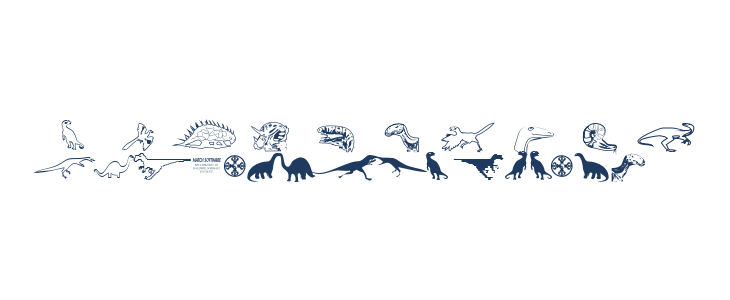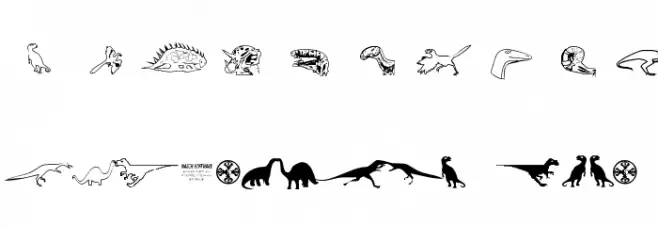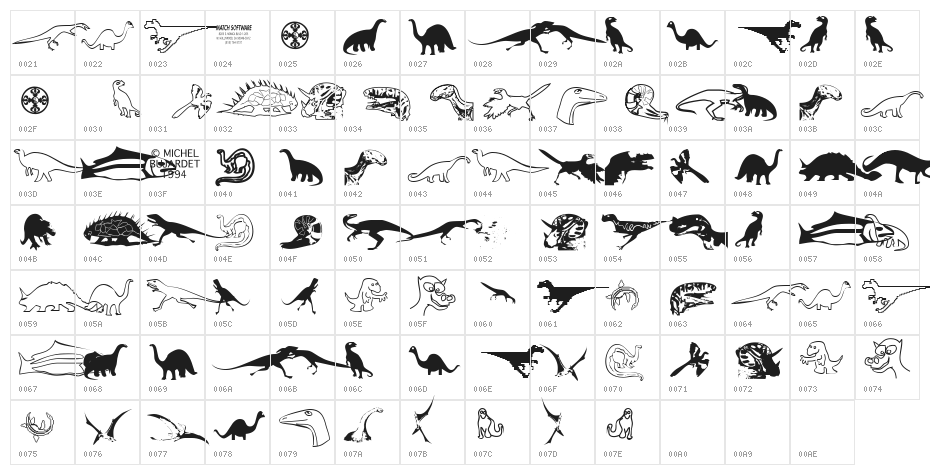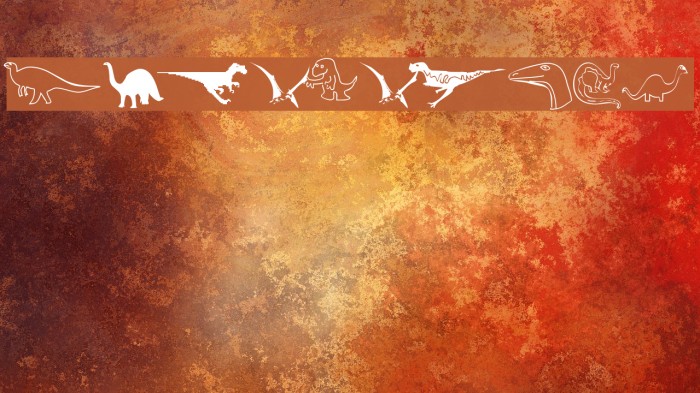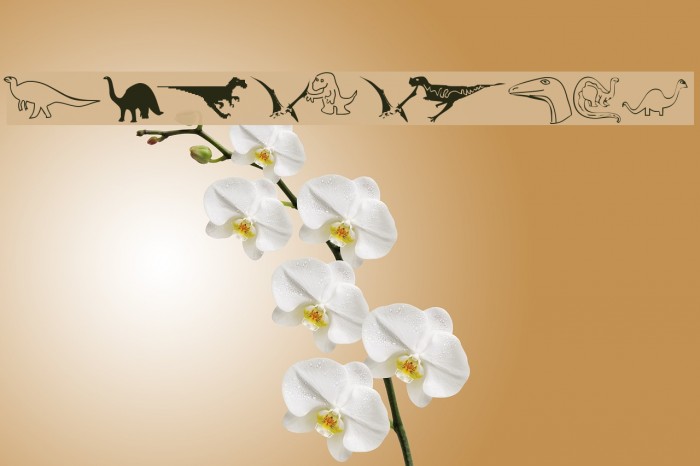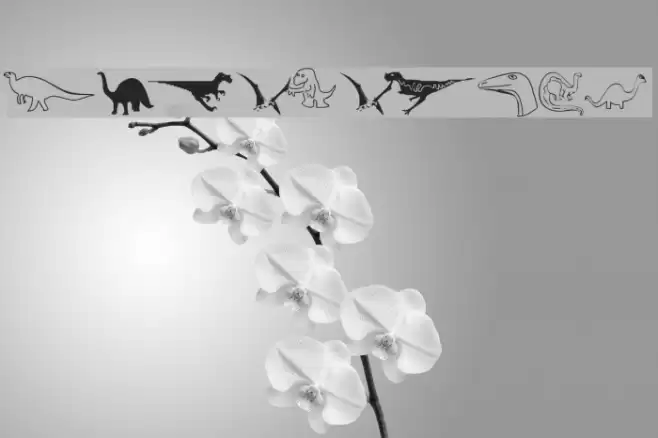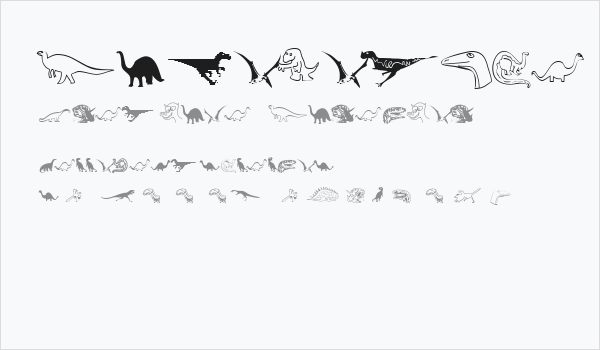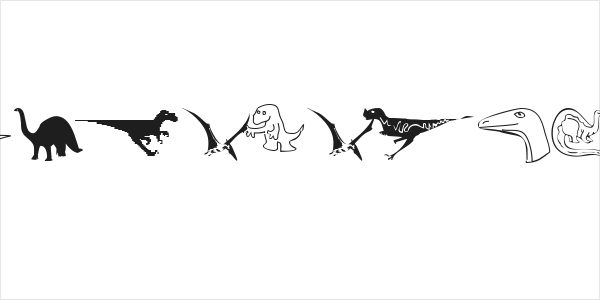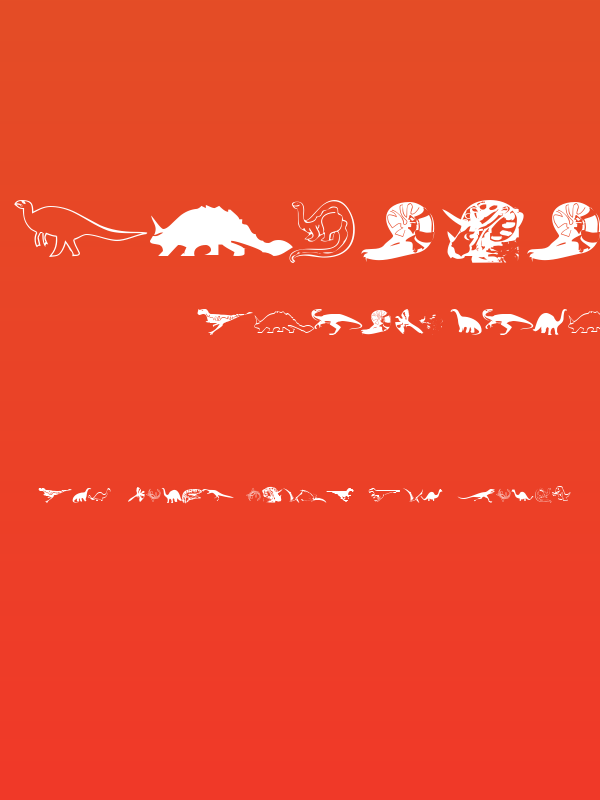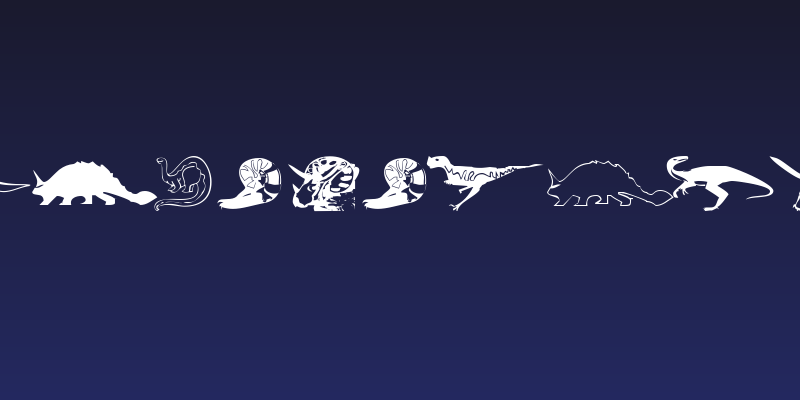
DinosoType Font
DinosoType Description
This font is a playful and creative collection of dinosaur silhouettes, each character representing a different dinosaur species. The designs are detailed, capturing the unique features of each dinosaur, from the long necks of sauropods to the spiky backs of stegosaurs. The characters are bold and visually striking, making them ideal for decorative purposes. The font is not intended for traditional text but rather for thematic and illustrative projects where a prehistoric or adventurous theme is desired.
Use CaseLogos, Illustrations, Themed Events
Proposed ProjectsIdeal for children's books, educational materials, themed party invitations, and merchandise designs related to dinosaurs or prehistoric themes.